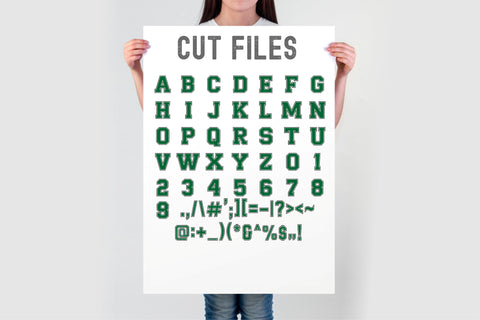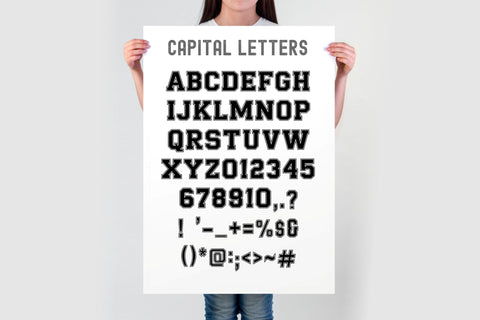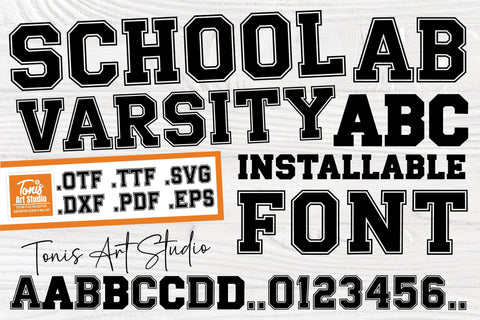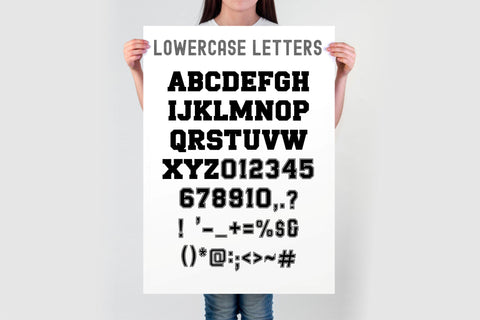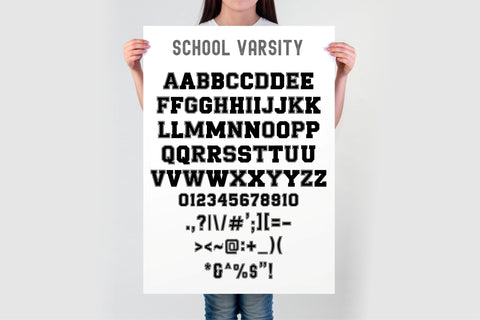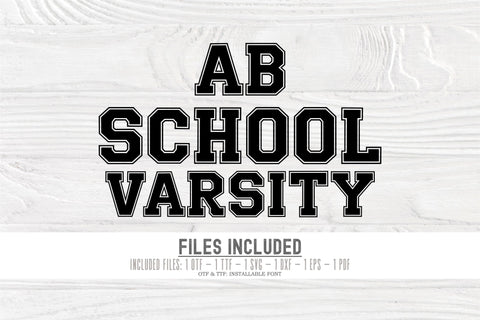
School Varsity - Bold Uppercase & Classic Lowercase Installable Font
Bring bold and classic varsity style to your projects with the "School Varsity" font! This versatile typeface features bold uppercase letters with a striking outline and solid lowercase characters, perfect for adding a dynamic touch to your designs. Whether you're creating t-shirts, school merchandise, posters, or DIY craft projects, this font provides endless possibilities for creating bold and timeless looks.
The "School Varsity" font includes uppercase letters with an outlined style for a sporty, standout design, while the lowercase letters are solid and clean for seamless integration. It also comes with cut file formats, perfect for use with crafting machines like Cricut and Silhouette.
- Bold outlined uppercase and solid lowercase characters for a dynamic design combination.
- Bold outlined uppercase letters and solid lowercase letters.